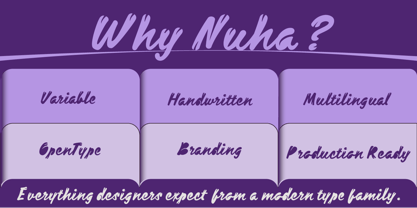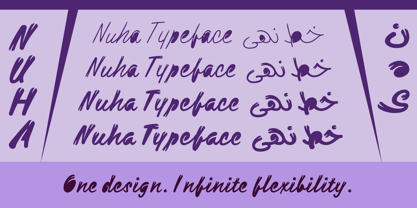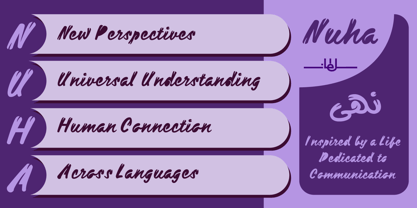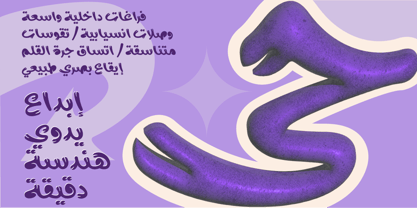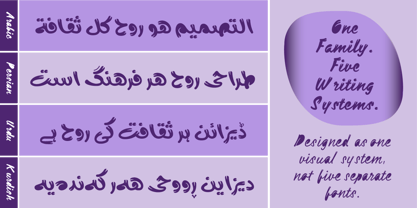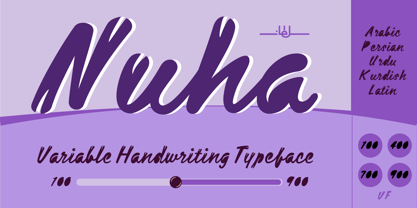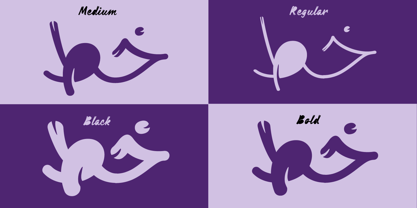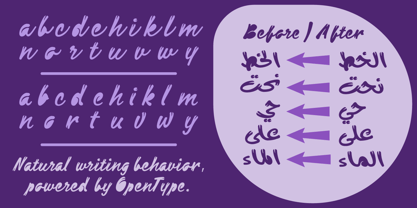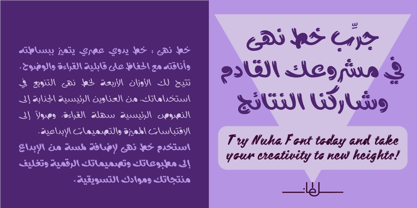
SF Nuha Solid
by Sultan Fonts
The SF Nuha Solid Font Family was designed by Sultan Maqtari and published by Sultan Fonts. SF Nuha Solid contains 4 styles and family package options. More about this family
Nuha Solid is a bold decorative interpretation of the Nuha handwritten typeface. Its denser forms, closed counters, and distinctive angled cuts create a striking graphic texture while preserving the fluid, energetic character of the original design.
Designed for expressive display typography, Nuha Solid is particularly suited to logos, headlines, posters, packaging, invitations, social media, and contemporary branding. Rather than simply increasing the weight, it reinterprets the Nuha forms as a more solid, decorative visual language.
Designers: Sultan Maqtari
Foundry: Sultan Fonts